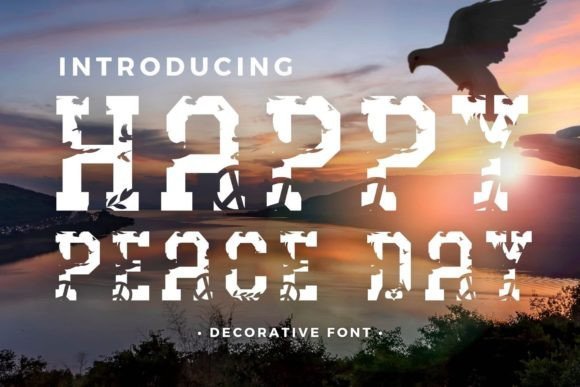
Embracing the Power of Typography: The Happy Peace Day Font
Introducing the Happy Peace Day Font, a delightful decorative typeface designed to add a touch of whimsy and charm to your projects. With its playful and cheerful vibe, this font is sure to make your products stand out from the crowd and leave a lasting impression on your audience. Whether you’re a seasoned designer or a crafty enthusiast, the Happy Peace Day Font is a valuable addition to your toolkit, making it easy to create stunning designs with minimal effort.
Happy Peace Day Font Key Features
- Font Family: Happy Peace Day Font is a unique, hand-drawn font designed to evoke feelings of peace and serenity. It features a range of characters, including uppercase and lowercase letters, numbers, and punctuation.
- Unique Characteristics: The Happy Peace Day Font features a distinctive, hand-drawn style with subtle imperfections, giving it a unique and personal touch. The font also includes a range of special characters, such as swashes and flourishes, to add visual interest and flair.
Happy Peace Day Font Review
As a designer, I was excited to dive into the “Happy Peace Day Font” and see if it lived up to its name. The first thing I noticed was the whimsical feel that permeates the entire font. The ✨unique letterforms and ✨ playful flourishes give the font a sense of joy and celebration that’s perfect for projects focused on peace and positivity.
Here are some of the things that really stand out:
- ✨Perfect for titles and headings – the font’s bold and eye-catching nature makes it ideal for grabbing attention.
- ✨Great for hand-lettering – the font’s playful feel and expressive letterforms make it a great choice for hand-lettering projects.
- ✨Customizable – the font comes with a range of customization options, making it easy to tailor the look to your specific project.
- ⚠️Limited font weight options – the font only comes in a few weight options, which can make it difficult to achieve a cohesive look in certain projects.
- ⚠️Not ideal for body text – the font’s playful feel and bold nature can make it difficult to read in large blocks of text.
Overall, I think the “Happy Peace Day Font” is a great addition to any designer’s toolkit. While it may have some limitations, its unique personality and customization options make it a great choice for projects that require a touch of whimsy and joy.
Tips for Getting the Most Out of the Happy Peace Day Font
Use the Happy Peace Day Font to create eye-catching headlines and titles.
Pair the font with a clean and simple background to let the font take center stage.
Experiment with different font sizes and colors to add visual interest to your design.
Use the Happy Peace Day Font for:
Peace and love-themed designs.
Event flyers and posters.